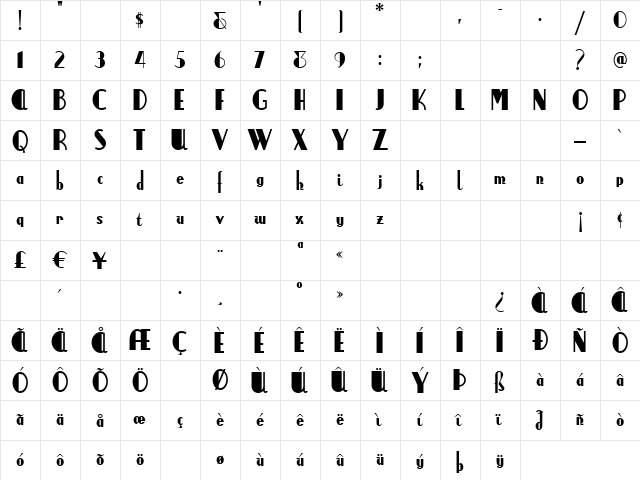
AnchorSteamNF Regular
Design Context for AnchorSteamNF Typeface
AnchorSteamNF is a composed and adaptable typeface that performs quietly and consistently across a wide range of design contexts.